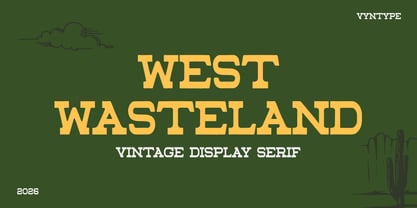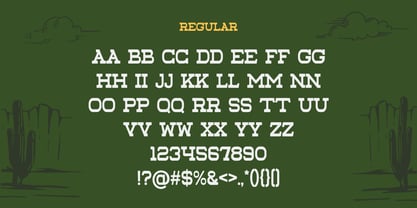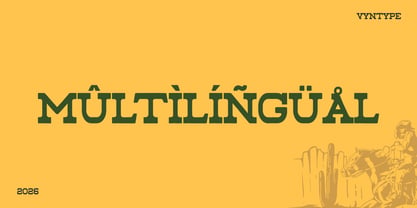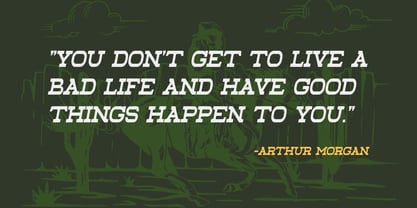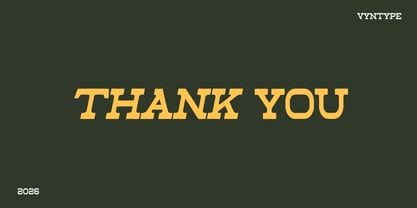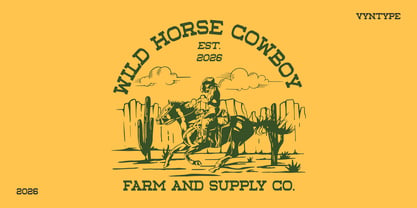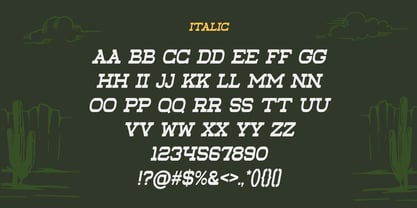
West Wasteland
by Vyantype Studio
The West Wasteland Font Family was designed by Hero Novyanto and published by Vyantype Studio. West Wasteland contains 2 styles and family package options. More about this family
West Wasteland is a bold serif display typeface that embodies the rugged essence of the sun-kissed American frontier, seamlessly merging it with the refined elegance of mid-century editorial design. This typeface showcases a signature style defined by architectural solidity and weathered sophistication. While its fundamental structure is classic, the softened edges evoke a western cowboy aesthetic, resulting in a dusty yet premium appearance. Ideal for branding, packaging, and UI design, West Wasteland provides a unique blend of strength and charm, making it a versatile choice for a wide range of creative projects. With various weights and OpenType features, this typeface is perfect for enhancing visual storytelling and creating impactful designs.
Designers: Hero Novyanto
Foundry: Vyantype Studio
West Wasteland